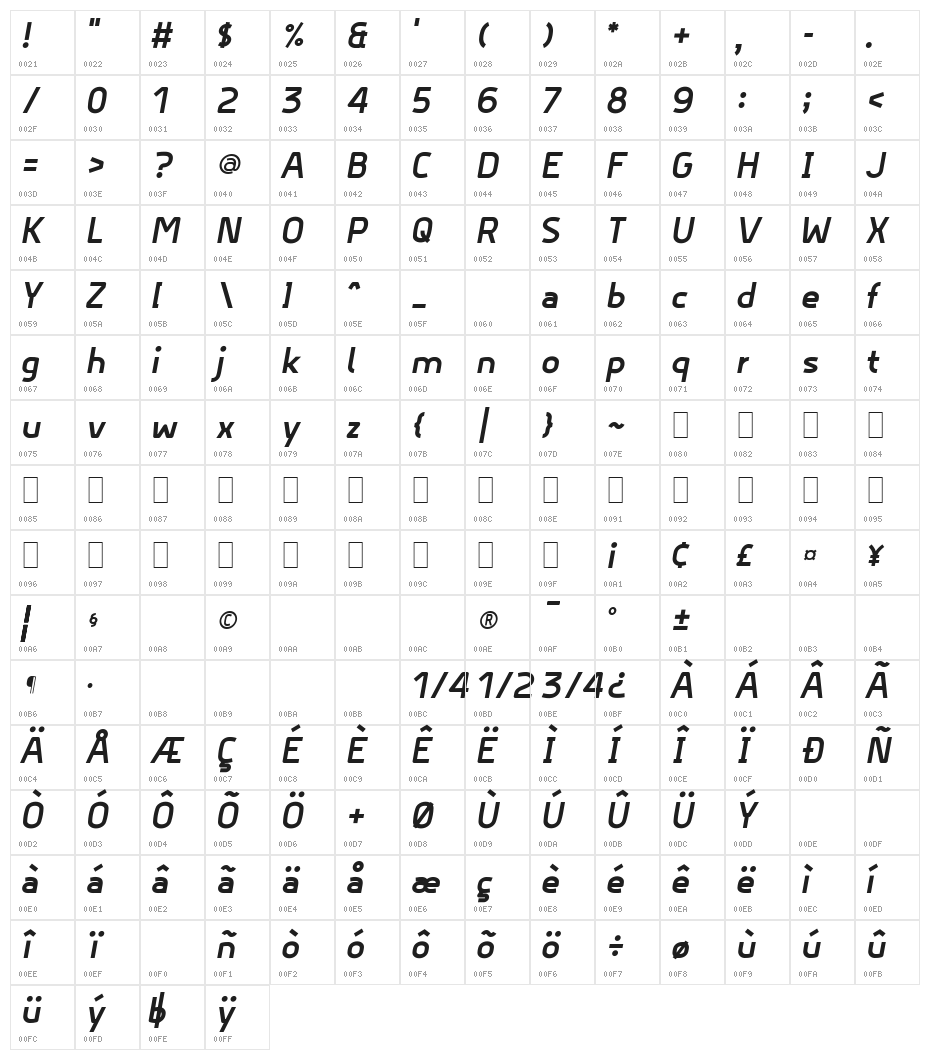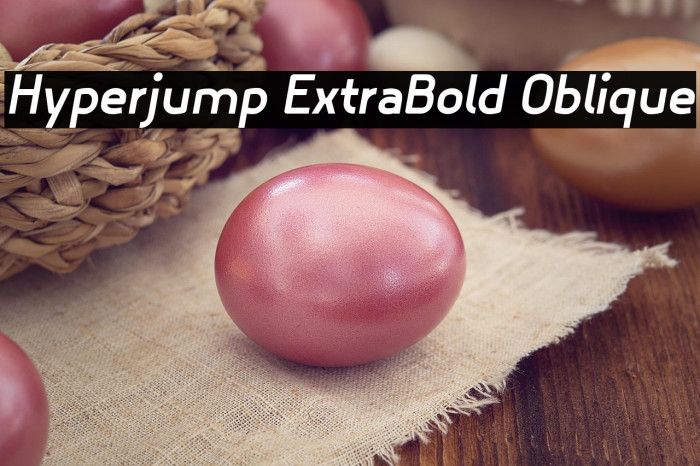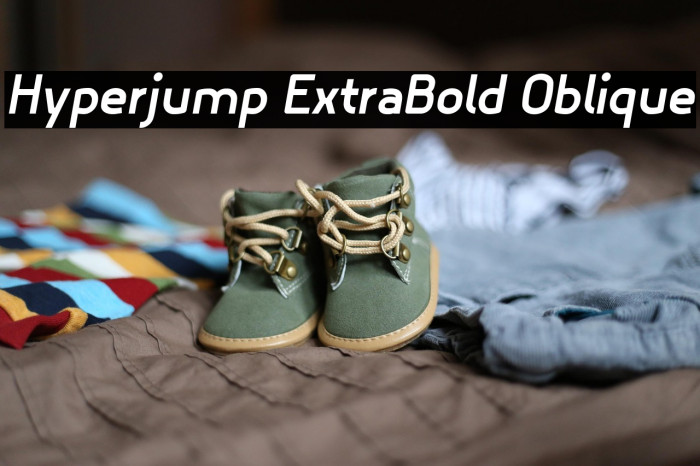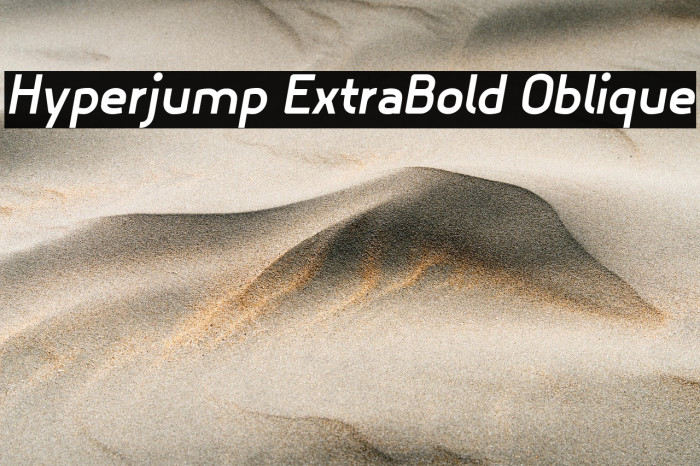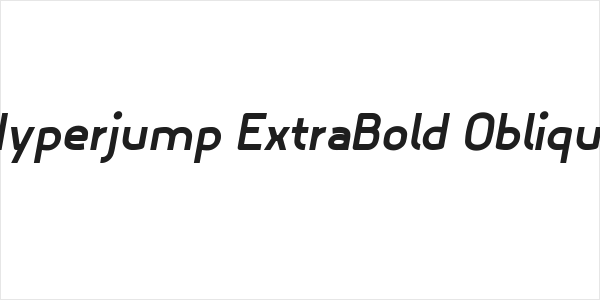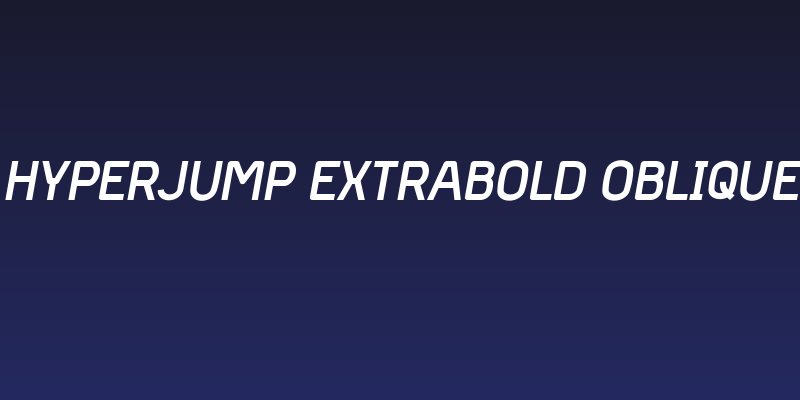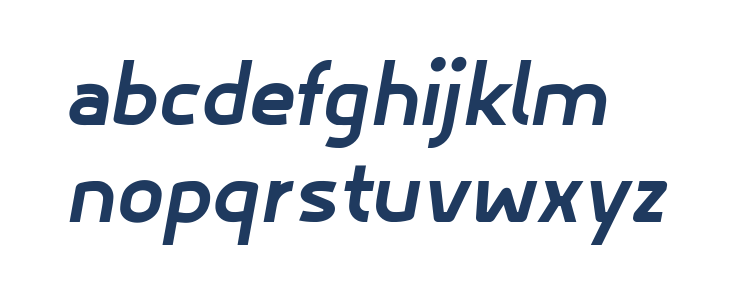
Hyperjump ExtraBold Oblique Font
Hyperjump ExtraBold Oblique Description
This font features a dynamic and modern aesthetic with an oblique style, giving it a forward-leaning appearance that conveys motion and energy. The characters are bold and robust, ensuring high visibility and impact. The design is clean and sans-serif, which enhances readability while maintaining a contemporary look. The strokes are consistent in weight, providing a uniform appearance across all characters. This font is well-suited for projects that require a strong and assertive presence, such as branding, advertising, and digital media.
Use CaseHeadlines, Logos, Advertising
Proposed ProjectsIdeal for branding, advertising, digital media, and any project needing a strong, modern presence.